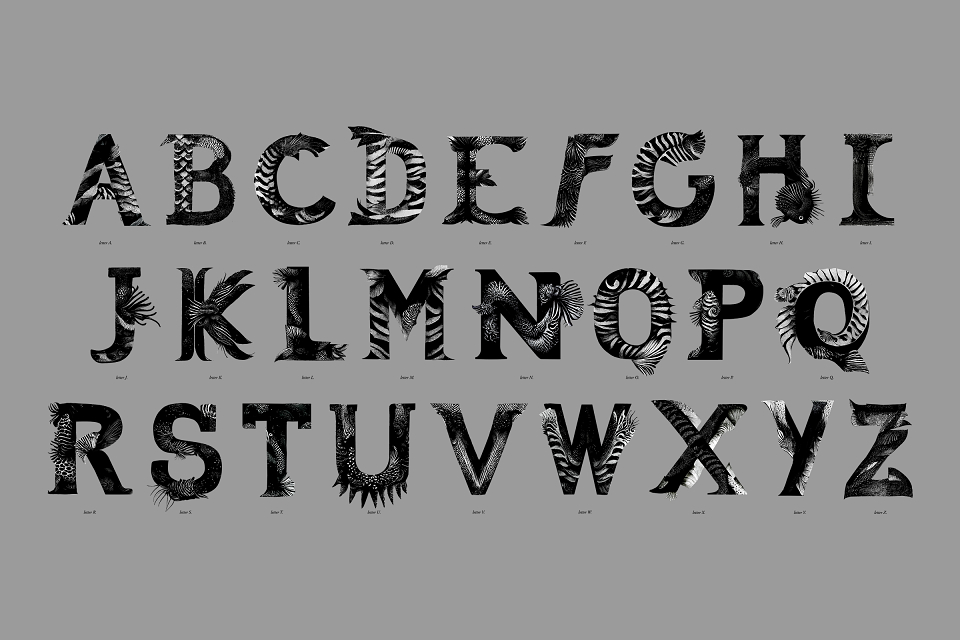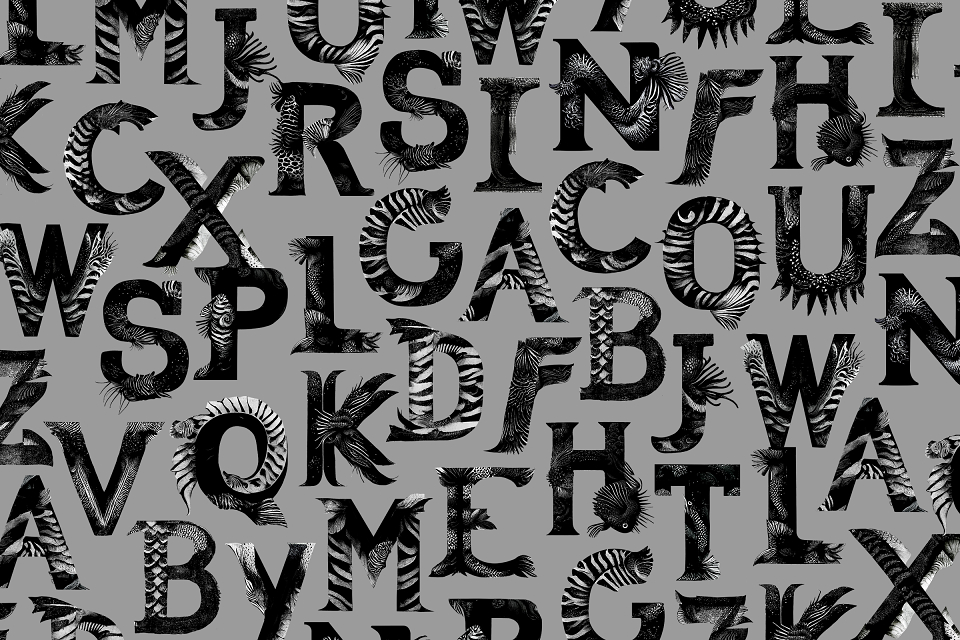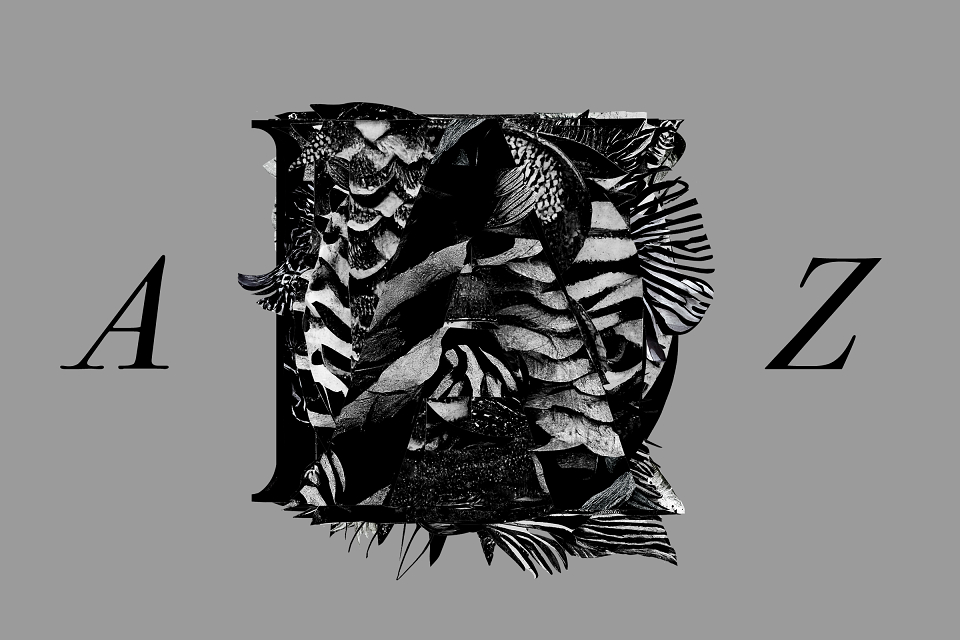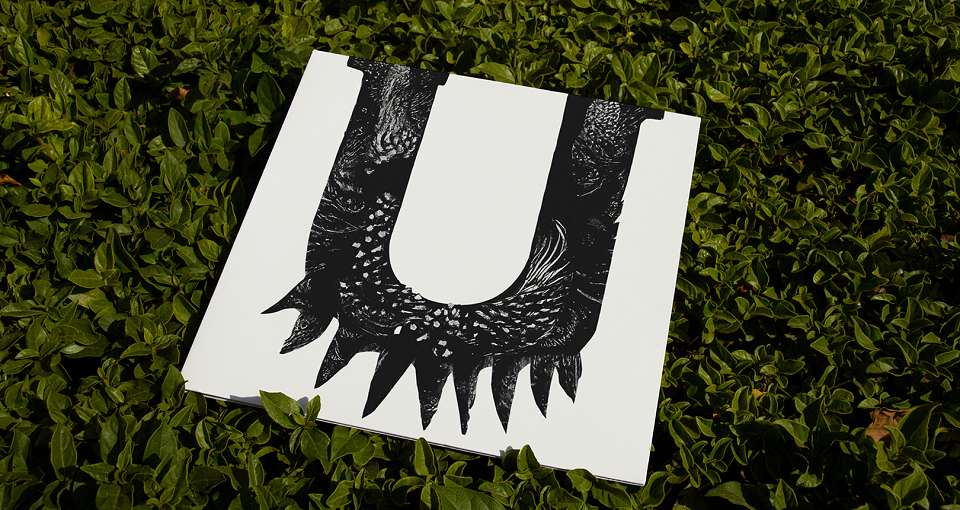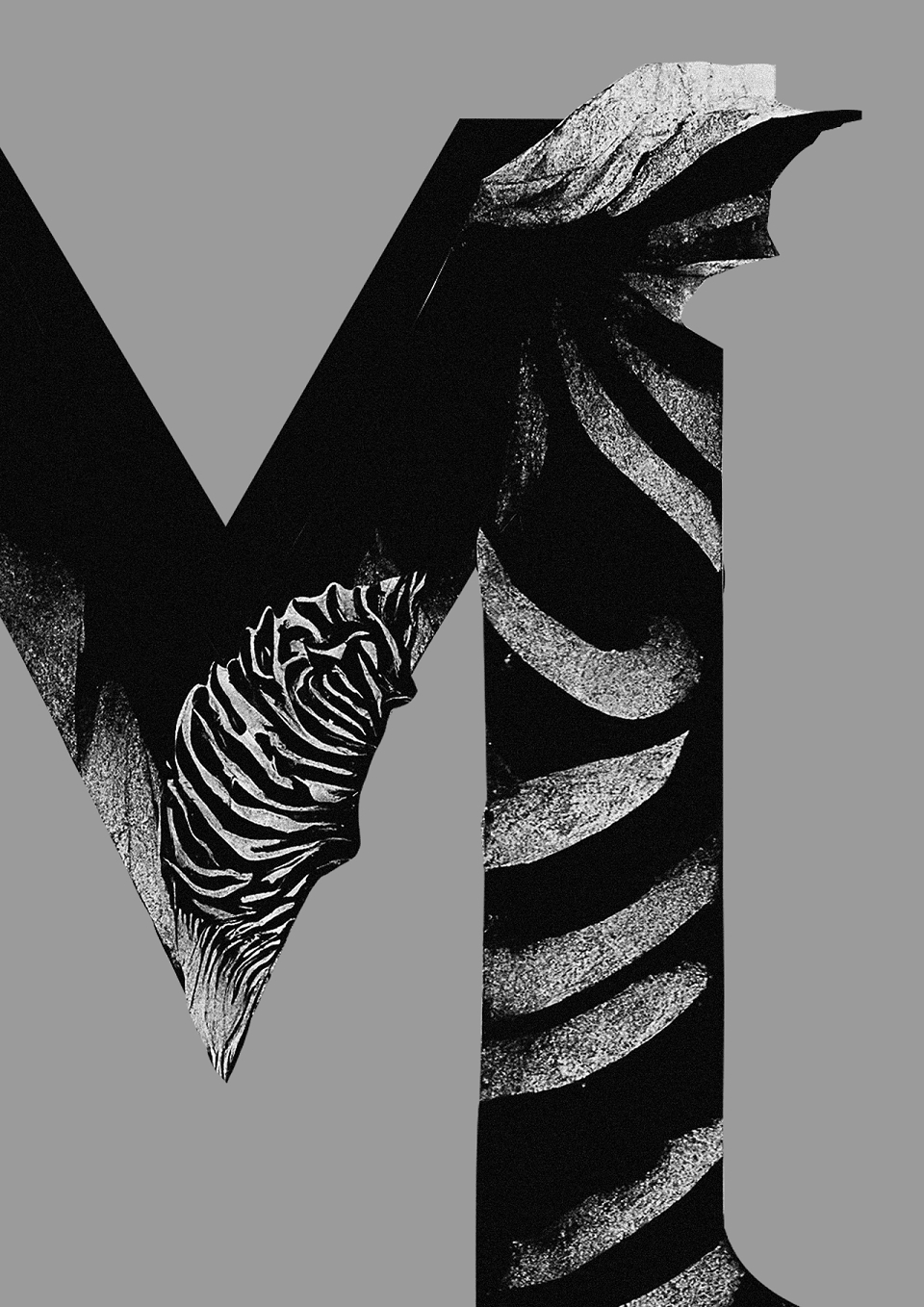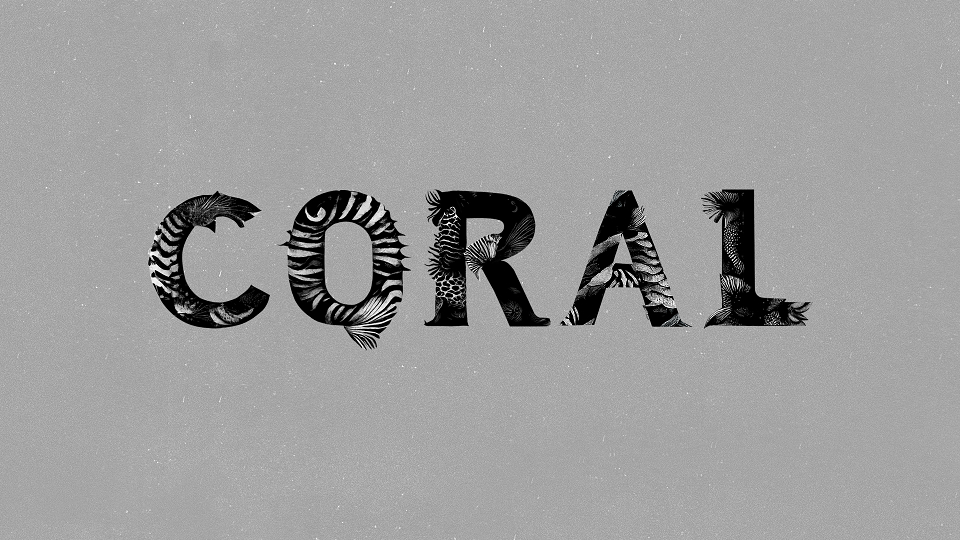
MAR (sea in Spanish) — a typeface study. The idea of the project came from a daily swimming routine with snorkel through the "coves" in Mallorca during the months of July and August in 2022. Observing the hypnotic movement of very common marine plants on the coast of the Balearic Islands, such as Neptunes Grass (Posidonia Oceanica) or Red algae (Rhodophyta), was the initial conceptual spark to develop an organic typographic study.
Through the use of artificial intelligence, each letter was created using prompts related to the fauna and flora of the Mediterranean Sea, and was later edited with digital collage techniques and manual fine adjustments of height and length to improve and evolve the design and the readability. It is a very personal work that combines a designer's passion for the sea and typographic design.
MAR — a typeface study